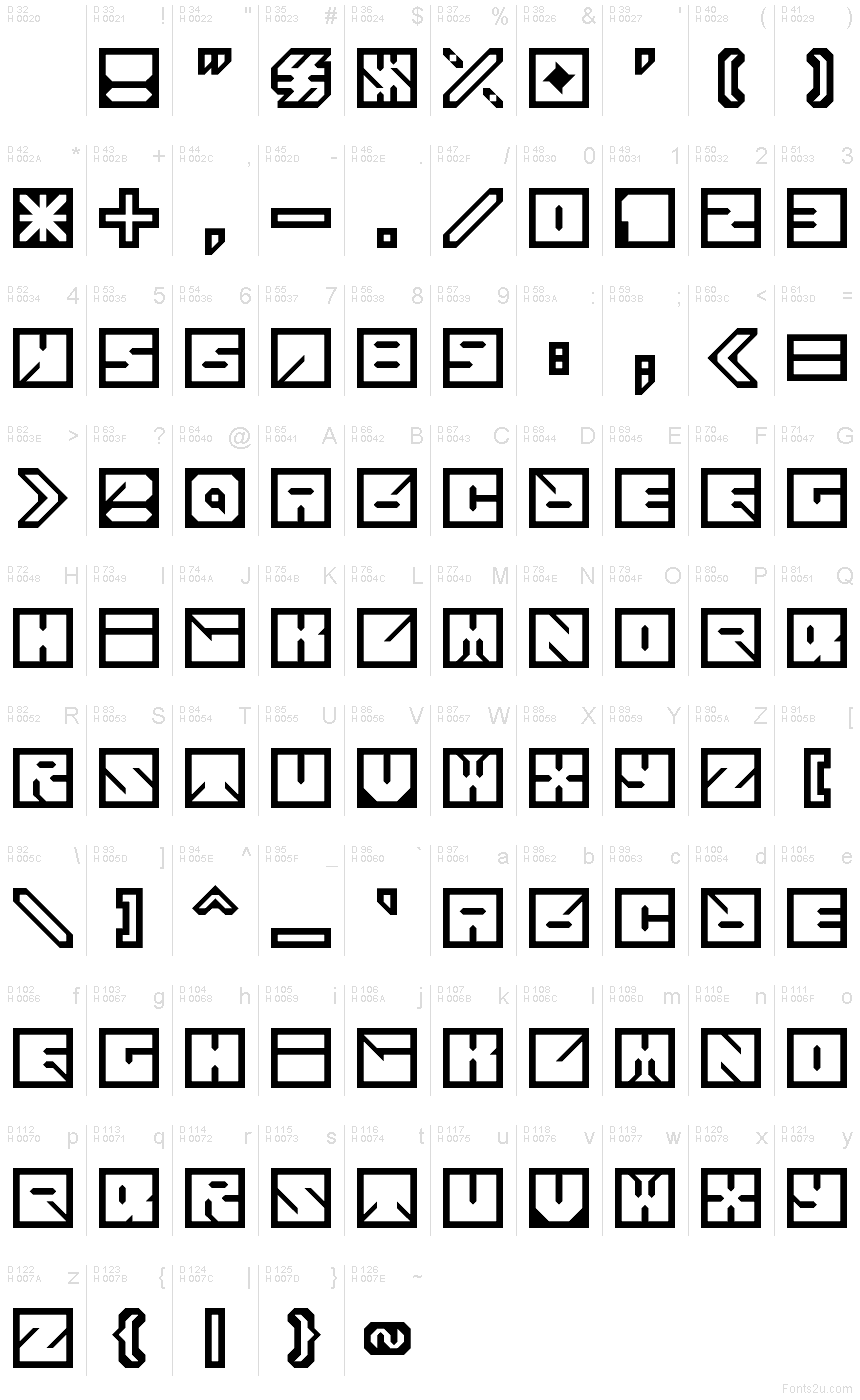
Nunuk Regular
Nunuk font by Nunuk12 is a free techno display typeface that turns every word into a crisp, futuristic circuit. Its letters are carved from bold, straight strokes with sharp right angles and clean cutouts, creating the feeling of a digital maze or neon track. The rhythm is compact and upright, so even short words look strong, locked-in, and ready for the screen.
Using Nunuk, titles instantly feel wired-in and high-tech, whether you’re designing gaming logos, sci-fi posters, esports overlays, tech event banners, or electronic album covers. This free font thrives at large sizes where its geometric joints and negative spaces can breathe. For body copy or smaller labels, pair Nunuk with a simple, open sans serif to keep everything readable while the headline does the visual heavy lifting.